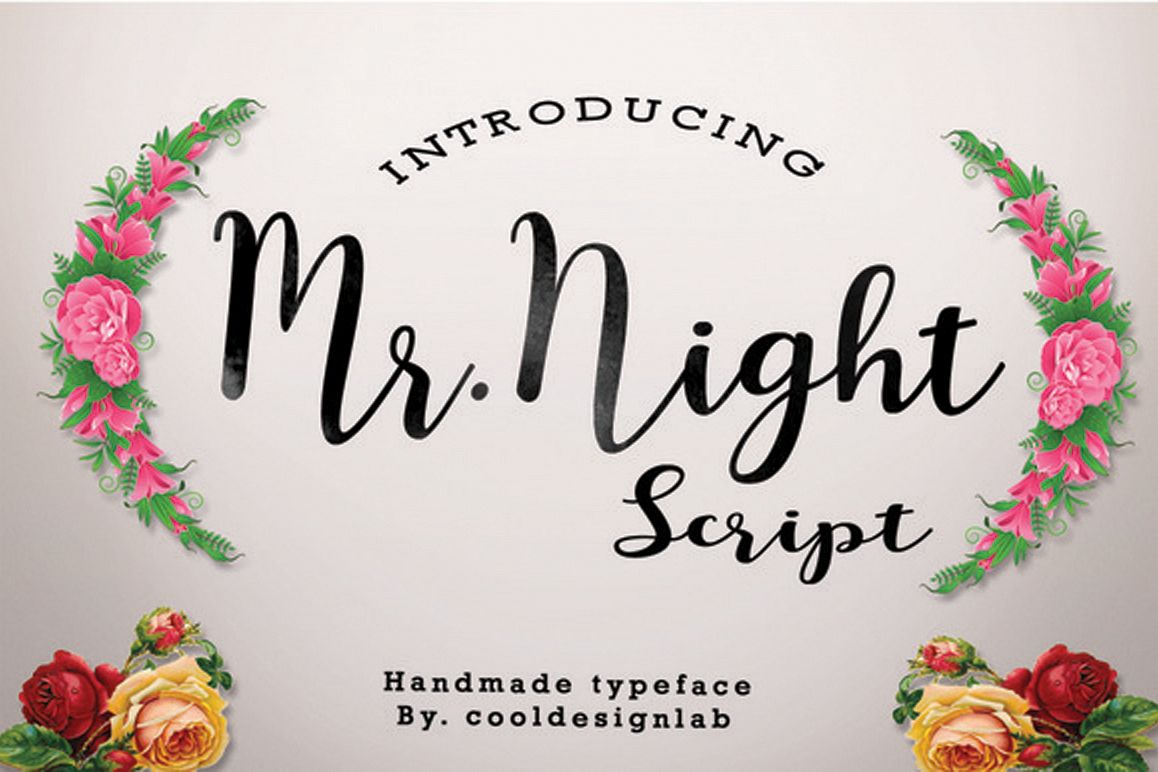
Mr.Night script
Mr.Night is a script typeface beautiful calligraphy and modern. This font is suitable for a wide range of products each project, such as wedding invitations, greeting cards, correspondence, and various other purposes and many more.
Initial Alternates
Terminal Alternates
Standard ligatures
Basic Latin A-Z and a-z
Numbers